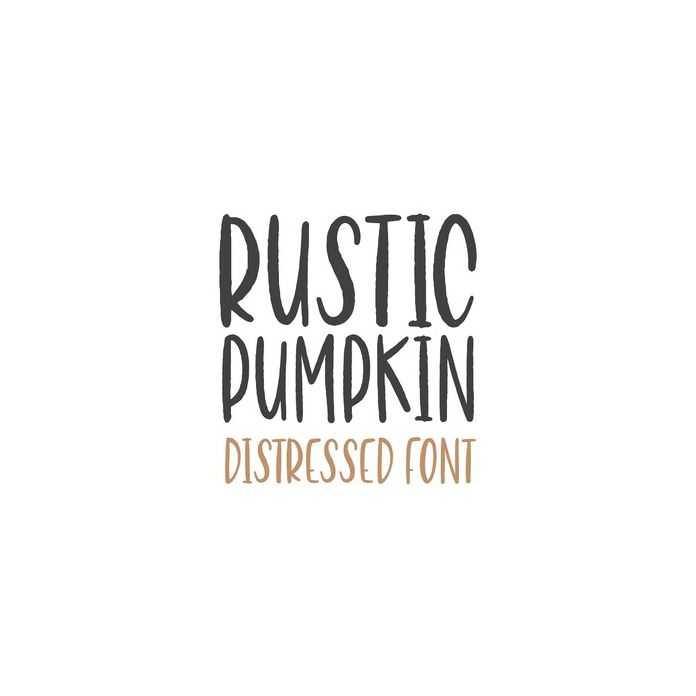
Rustic Pumpkin Distressed Autumn Font
Rustic Pumpkin is a distressed font perfect for Autumn crafts. Please note, the edges of this font are not completely smooth.